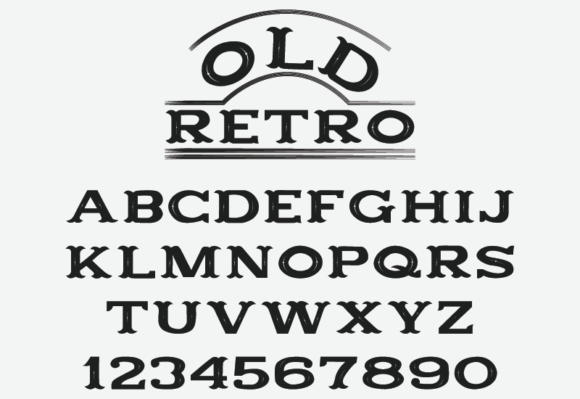
Make a statement with Old Retro, the captivating serif font that exudes a timeless Western charm. Inspired by the classic serif fonts of the past, Old Retro merges vintage elegance with modern simplicity, striking a perfect balance between nostalgia and contemporary style.
Step into a world of typography where retro meets modern, where every letter carries a story, and every design tells a tale. With Old Retro as your creative companion, you'll embark on a journey of limitless expression, crafting designs that resonate with your audience's heartstrings.
Whether you're a seasoned designer or just starting your creative journey, Old Retro is your perfect font partner. Its versatility knows no bounds, effortlessly adapting to a myriad of projects, from logos that command attention to web designs that captivate, and branding that leaves a lasting impression.
Immerse yourself in the world of Old Retro, where your creativity takes center stage. Discover the magic of typography as you craft visually stunning designs that speak to your audience, leaving them captivated and inspired.